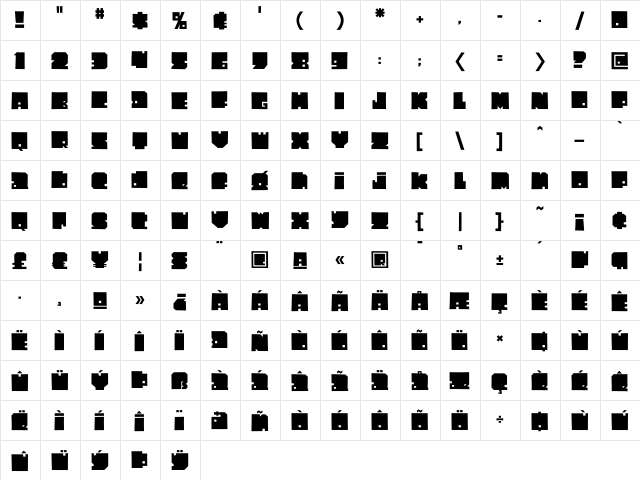
Lump Regular
| Foundry | Dilworth Typographics Inc. |
| Designer | Silas Dilworth |
Design Context for Lump Typeface
Lump is a composed and adaptable typeface that performs quietly and consistently across a wide range of design contexts.